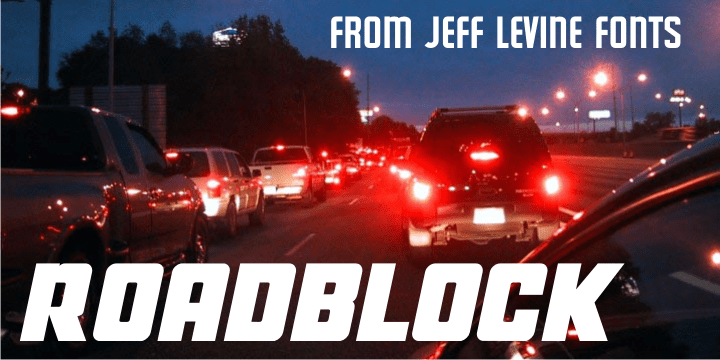
Roadblock
Roadblock JNL is the solidified and slanted version of Patriotica JNL – a stars and stripes font based on lettering by the late Alf R. Becker as commissioned by Signs of the Times magazine. Thanks to Tod Swormstedt of ST Publications, Inc. and the American Sign Museum in Cincinati, Ohio for providing source material for use as a work model.
Roadblock JNL Regular by Jeff Levine Fonts